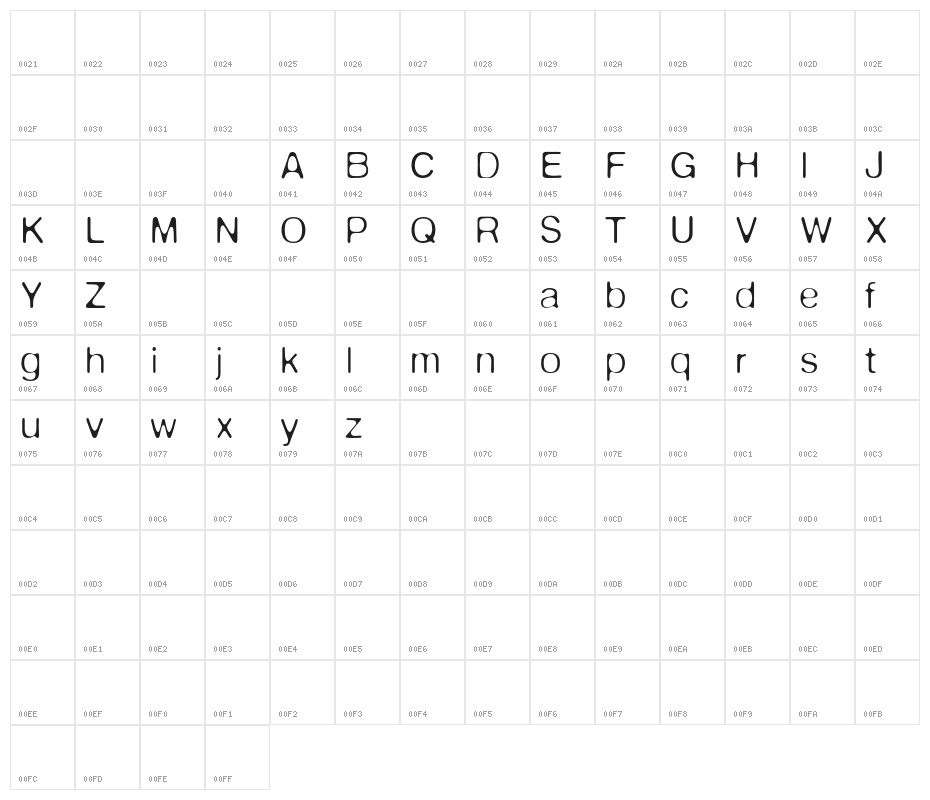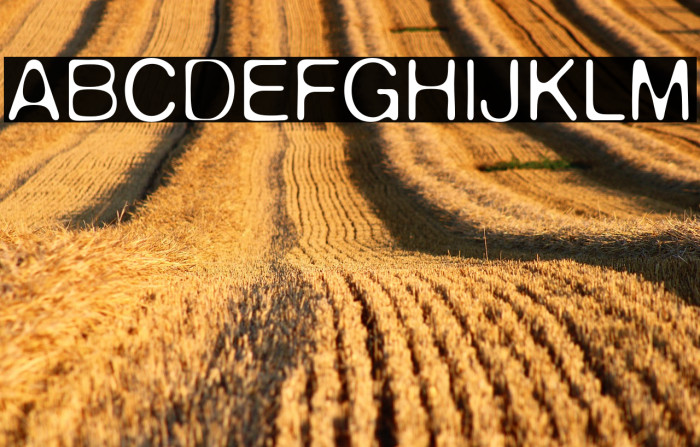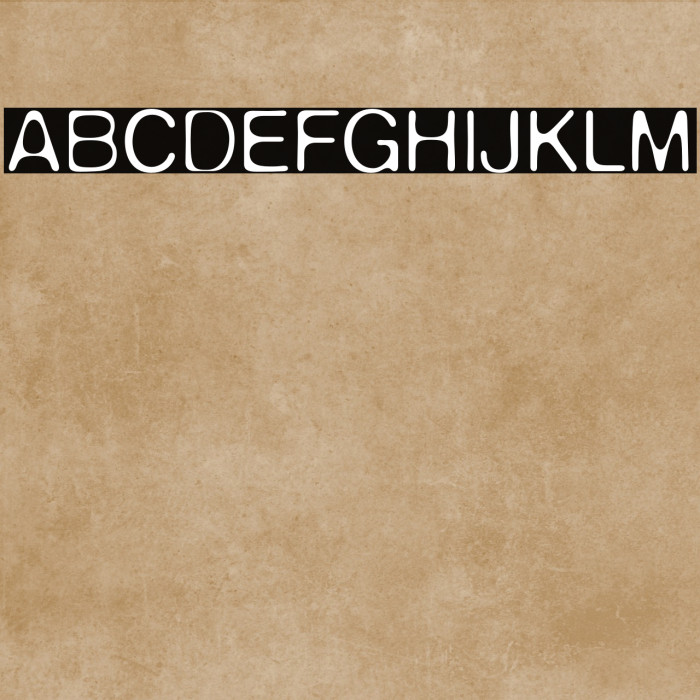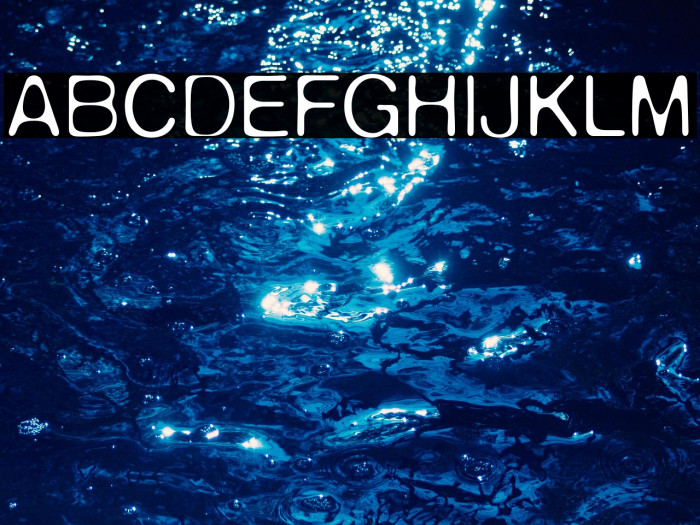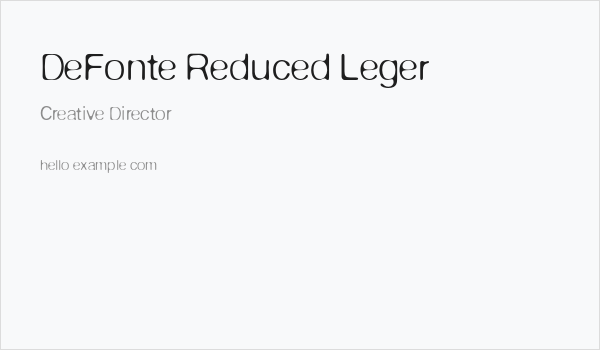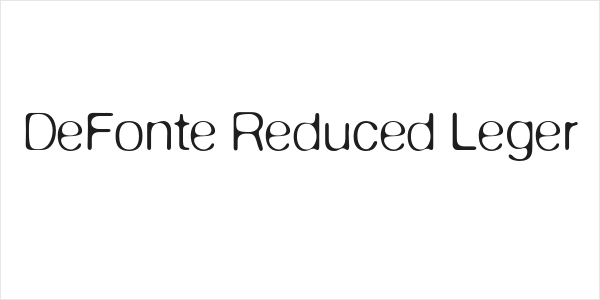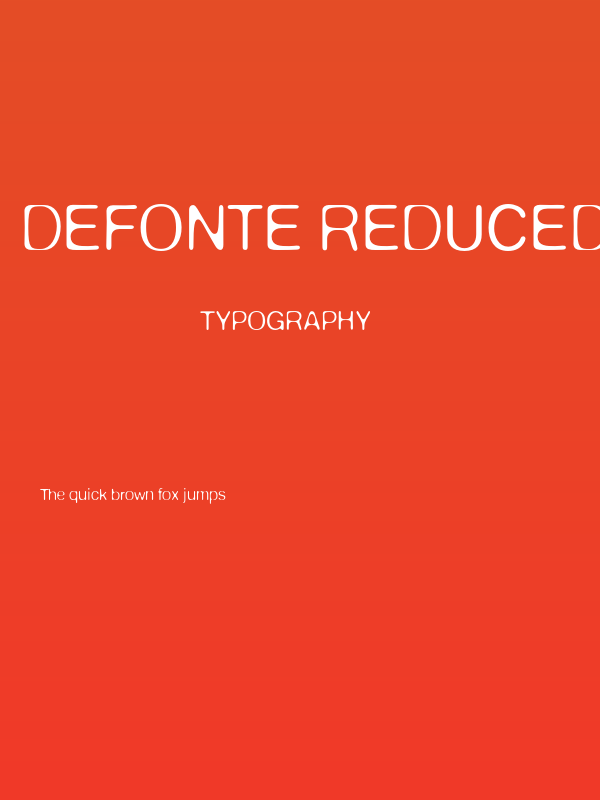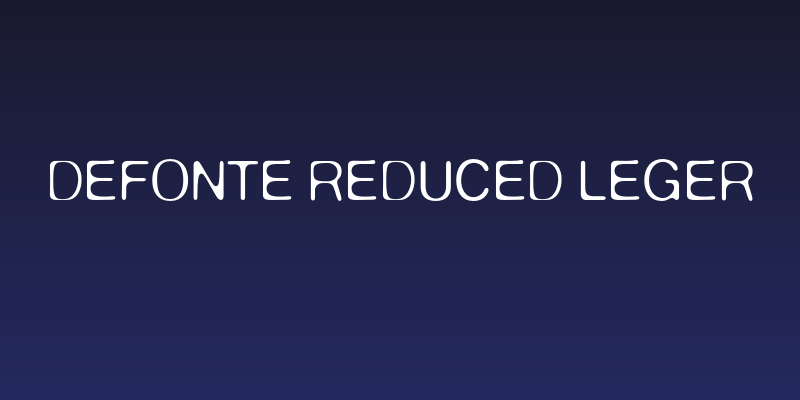
DeFonte Reduced Leger Font
DeFonte Reduced Leger Description
This font features a unique blend of rounded and slightly elongated letterforms, creating a playful yet modern aesthetic. The uppercase letters are bold and prominent, with a consistent stroke width that gives them a sturdy appearance. The lowercase letters maintain a similar style, with smooth curves and a friendly demeanor. The overall design is clean and approachable, making it suitable for a variety of applications. The numbers and special characters follow the same design principles, ensuring a cohesive look across all elements. The font's distinct style is characterized by its rounded edges and uniform line thickness, which contribute to its modern and versatile appeal.
| Use Case | Logos, Headlines, Branding |
| Proposed Projects | Ideal for branding, advertising, packaging, and children's books due to its friendly and approachable style. |